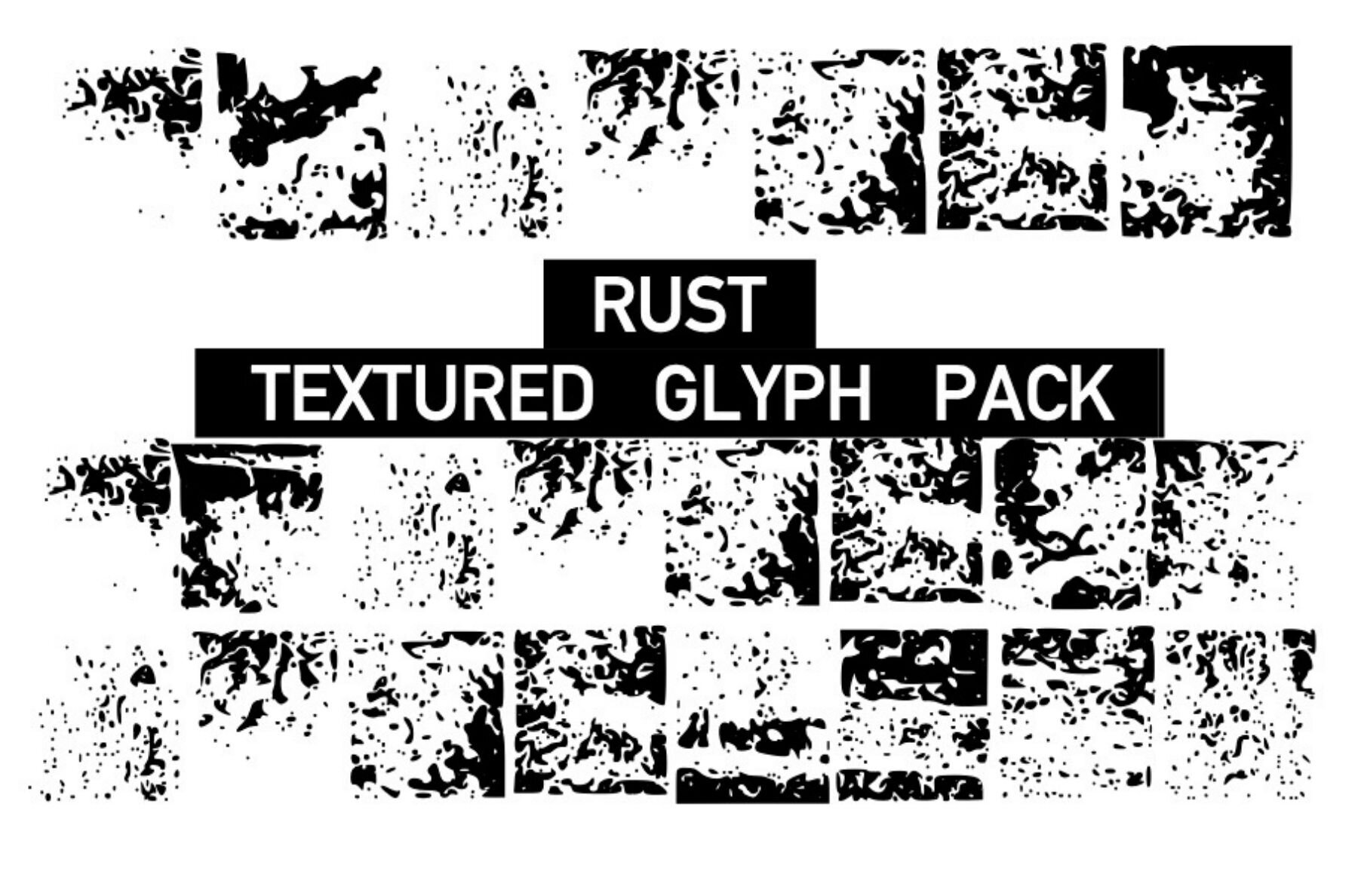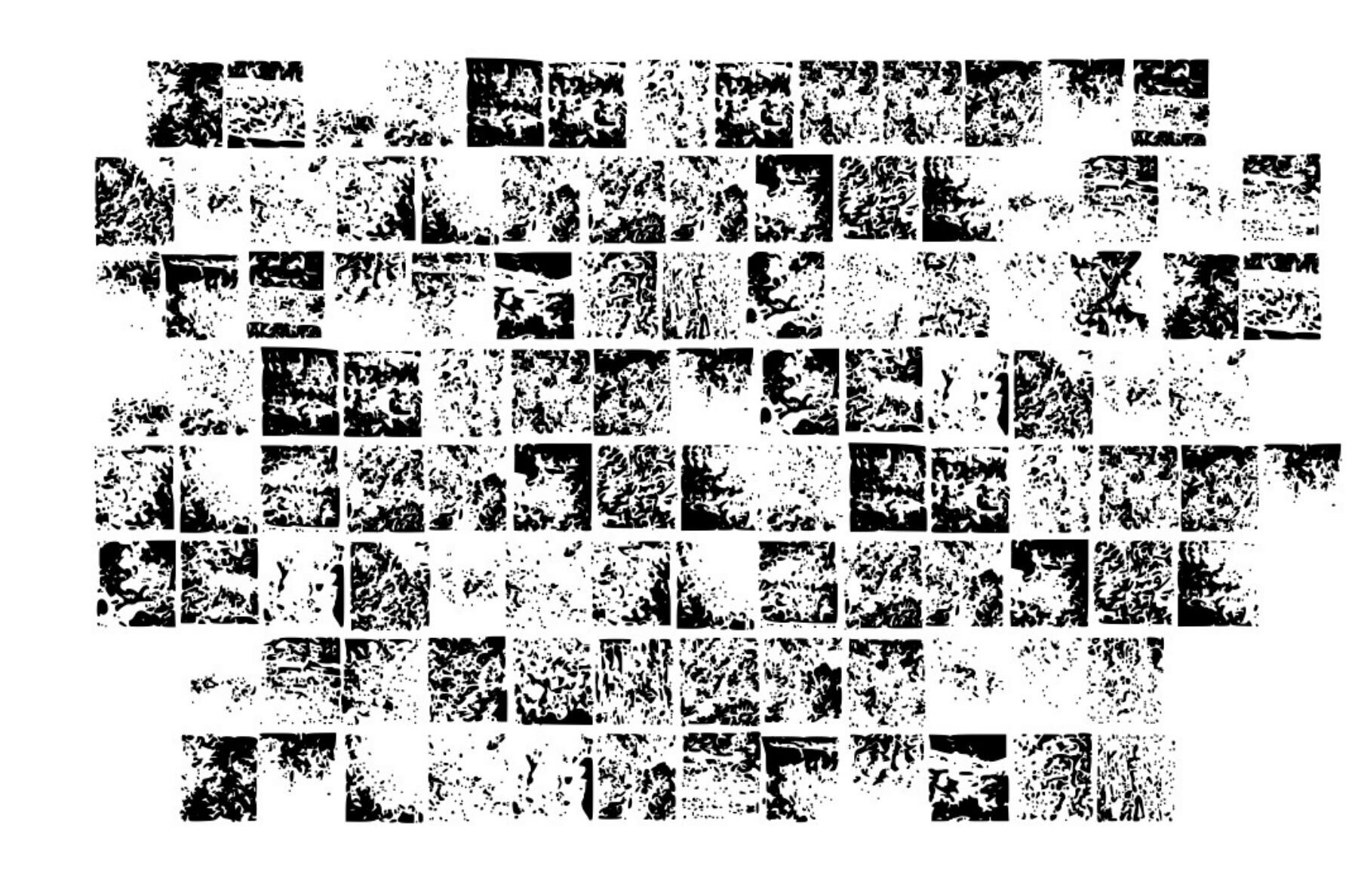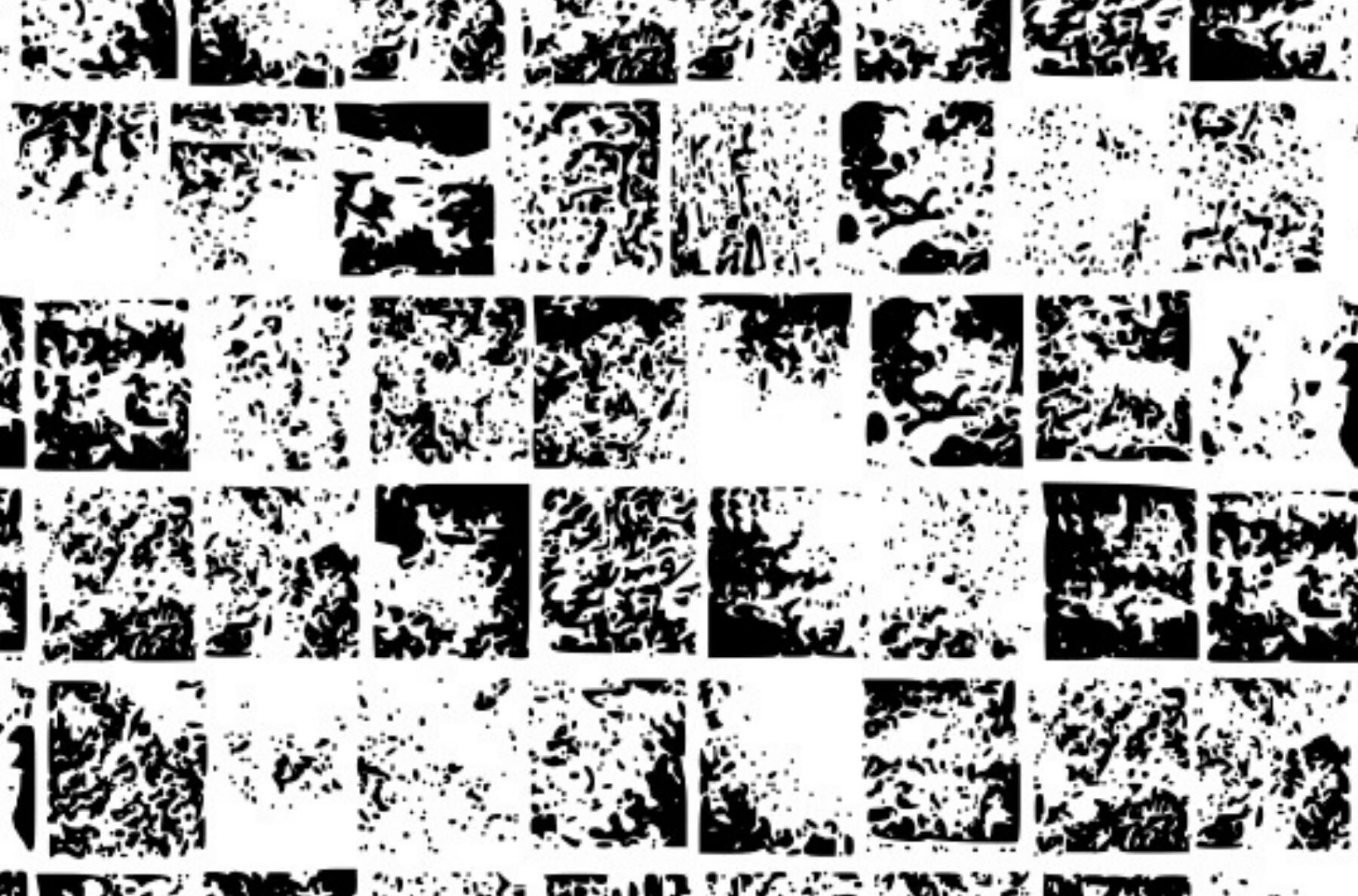
Texture Rust Font
Texture Rust
Unleash your creativity with the Texture Rust collection, offering an extensive array of rusted metal textured glyphs. This set is ideal for infusing organic elements into your design or craft projects. Each glyph boasts a uniquely aged appearance, adding depth and character to your work. Elevate your creations by integrating these textures that echo the passage of time.Texture Rust - Rusted Textured Glyphs